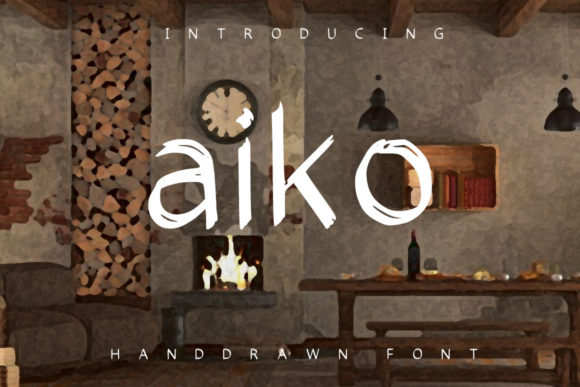
The Sweet Spot: Discovering the Charm of Aiko Font
I’ll never forget the moment I stumbled upon Aiko Font while working on a whimsical branding project for a children’s play area. I had spent hours browsing through font libraries, but nothing seemed quite right – until Aiko caught my eye. Its sweet, friendly, and handwritten style instantly resonated with the project’s playful vibe. I knew right then and there that Aiko was the perfect fit. In this article, I’ll share my experience with Aiko, its unique features, and how to make the most of this beautiful font.
An Honest Review of Aiko Font
What I Love About Aiko ✨
• Natural and unique style that suits a wide range of designs ✅
• Effortlessly conveys a sense of warmth and friendliness 🌸
• Supports OpenType features, glyphs, and stylistic alternates for added creativity 🎨
• Works beautifully for both digital and print projects 📊
• Some users might find the font a tad too casual for very formal projects ⚠️
• Limited availability of condensed or italic versions, which might restrict its use in certain layouts 📐
The Story Behind Aiko Font
Aiko Font was designed with the intention of creating a friendly, approachable typeface that could bring warmth to various design projects. Its creator aimed to craft a font that felt both personal and versatile, making it suitable for a wide range of applications. With Aiko, designers can add a touch of personality to their work, making it perfect for creative projects that require a human touch.
Q: What makes Aiko Font unique?
A: Aiko Font stands out due to its natural, handwritten style and support for OpenType features, glyphs, and stylistic alternates, making it incredibly versatile.
Q: Is Aiko Font suitable for digital projects?
A: Absolutely! Aiko Font works beautifully for digital projects, including websites, social media graphics, and more.
Q: Can I use Aiko Font in languages other than English?
A: Aiko Font supports multiple languages. However, it’s essential to check the font’s character set to ensure it covers the specific characters you need.